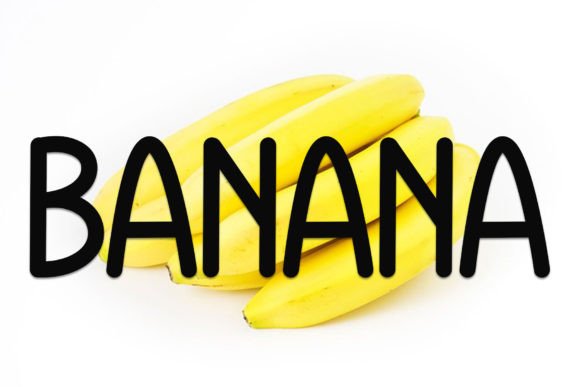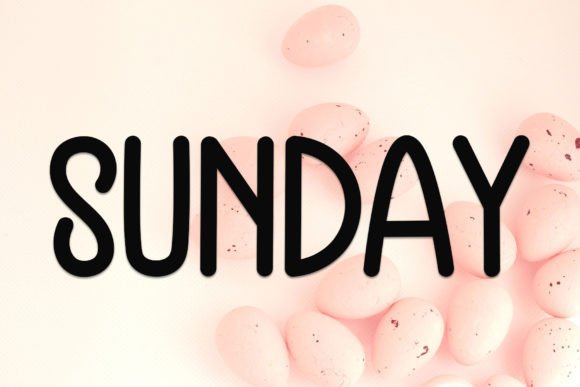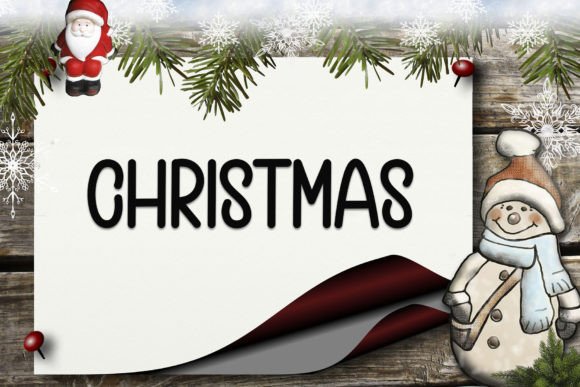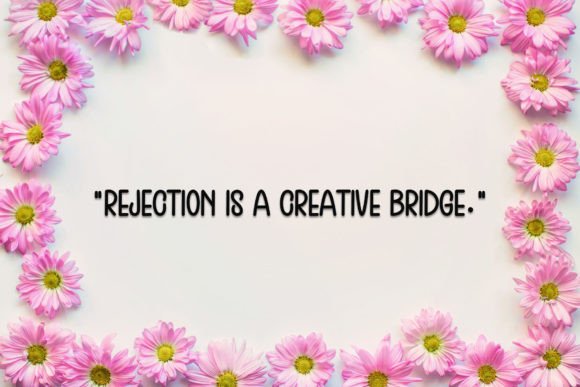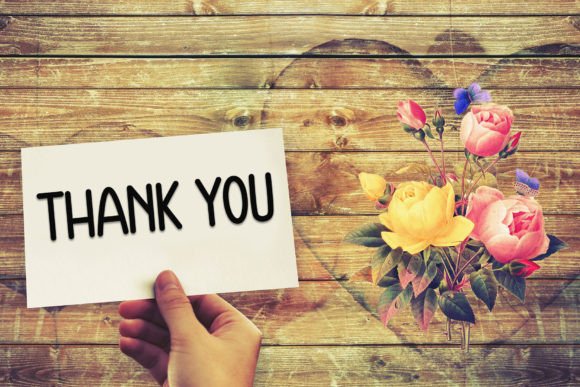
The Magic of Autumn Font: Adding a Touch of Holiday Cheer to Your Designs
I’ll never forget the time I was working on a festive holiday project for a client, and I just couldn’t seem to find the perfect font to capture the spirit of the season. I had tried countless fonts, but none of them seemed to convey the warmth and coziness I was looking for. That was until I stumbled upon Autumn Font, a beautiful and festive typeface that instantly brought my design to life.
With its decorative elements and unique flair, Autumn Font adds a touch of charm to any design. Whether you’re working on greeting cards, gift labels, or holiday-themed projects, this font brings a cheerful and nostalgic atmosphere to your words. In this article, I’ll share my experience with Autumn Font, including what I love about it, some practical tips on how to use it, and a few similar fonts you might enjoy.
An Honest Review of Autumn Font
- ✅ The unique and decorative elements that give it a festive feel
- ✅ The wide range of glyphs and ligatures that make it versatile and fun to use
- ✅ The PUA coding that makes it easy to access all the amazing features
- ✅ The nostalgic and cheerful atmosphere it brings to my designs
- ⚠️ Some of the glyphs and ligatures can be a bit finicky to access, but the PUA coding helps
- ⚠️ It may not be the best choice for body text or long-form writing, as it’s more suited for headlines and titles
The Backstory of Autumn Font
Autumn Font was designed by a team of creative typographers who wanted to capture the spirit of the holiday season in a unique and festive way. Inspired by traditional holiday fonts, they added their own twist and flair to create a font that’s both nostalgic and modern. With its decorative elements and wide range of glyphs and ligatures, Autumn Font is the perfect choice for designers, crafters, and creative hobbyists looking to add a touch of holiday cheer to their designs.
Q: What is PUA coding, and how does it work?
A: PUA (Private Use Area) coding is a way of encoding fonts that allows designers to access a wide range of glyphs and ligatures. With Autumn Font, the PUA coding makes it easy to access all the amazing features and glyphs.